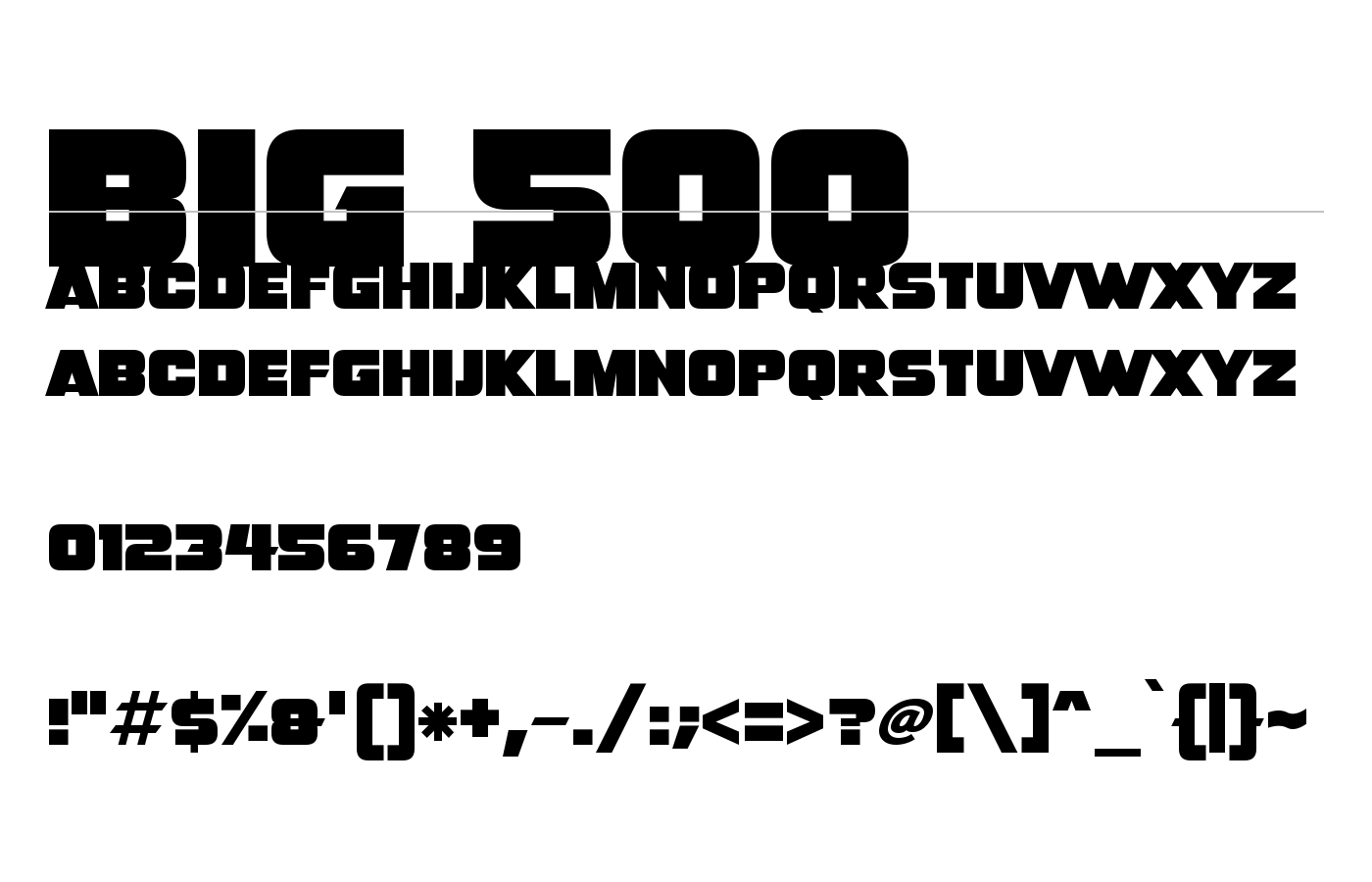
Big 500 is a bold, condensed sans serif font with a strong, geometric style that commands attention. Its heavy weight and tight spacing make it perfect for impactful headlines, logos, and display use where a modern, confident, and industrial feel is desired. This font works well in branding and advertising that aims to be bold and unmistakably clear.
Big 500 Font